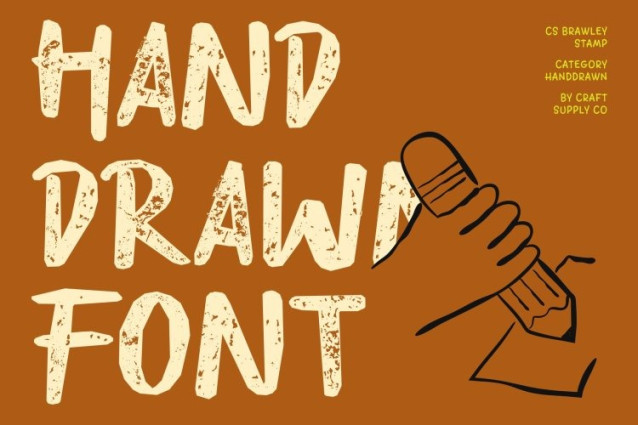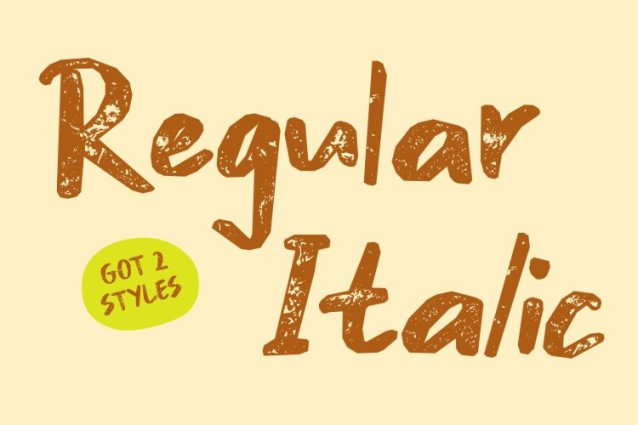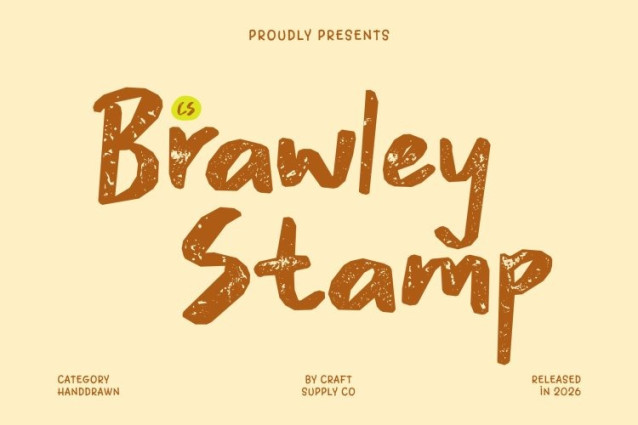
CS Brawley Stamp Font – This enhances its marker-style sans serif foundation with a subtle stamped texture that intensifies its handcrafted personality. The clean, modern structure remains clear and readable, while gently distressed edges and ink variations create the impression of real marker strokes pressed onto paper. The result is bold, expressive, and authentically tactile.
Organic Texture with Confident Character
Each letter carries natural irregularities that mirror the spontaneity of handwriting. The stamped finish deepens this effect, adding visual richness and dimension without overwhelming the form. This balance keeps the font strong and legible while maintaining a lively, human quality that feels genuine and energetic.
Modern Simplicity with Creative Warmth
Grounded in a sans serif framework, communicates clarity and structure while embracing expressive warmth. The fusion of clean geometry and handcrafted texture makes it versatile polished enough for professional use, yet dynamic enough for creative experimentation.
Ideal for Branding and Expressive Design
Perfect for editorials, logos, posters, packaging, social media graphics, and bold branding projects, delivers personality with impact. Its marker-inspired strokes and stamped texture give every composition a confident, approachable voice full of movement, authenticity, and handcrafted charm.